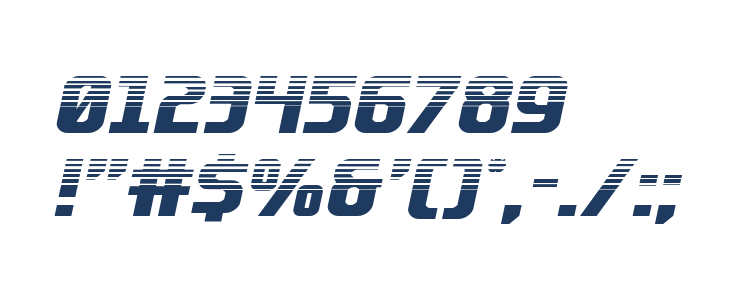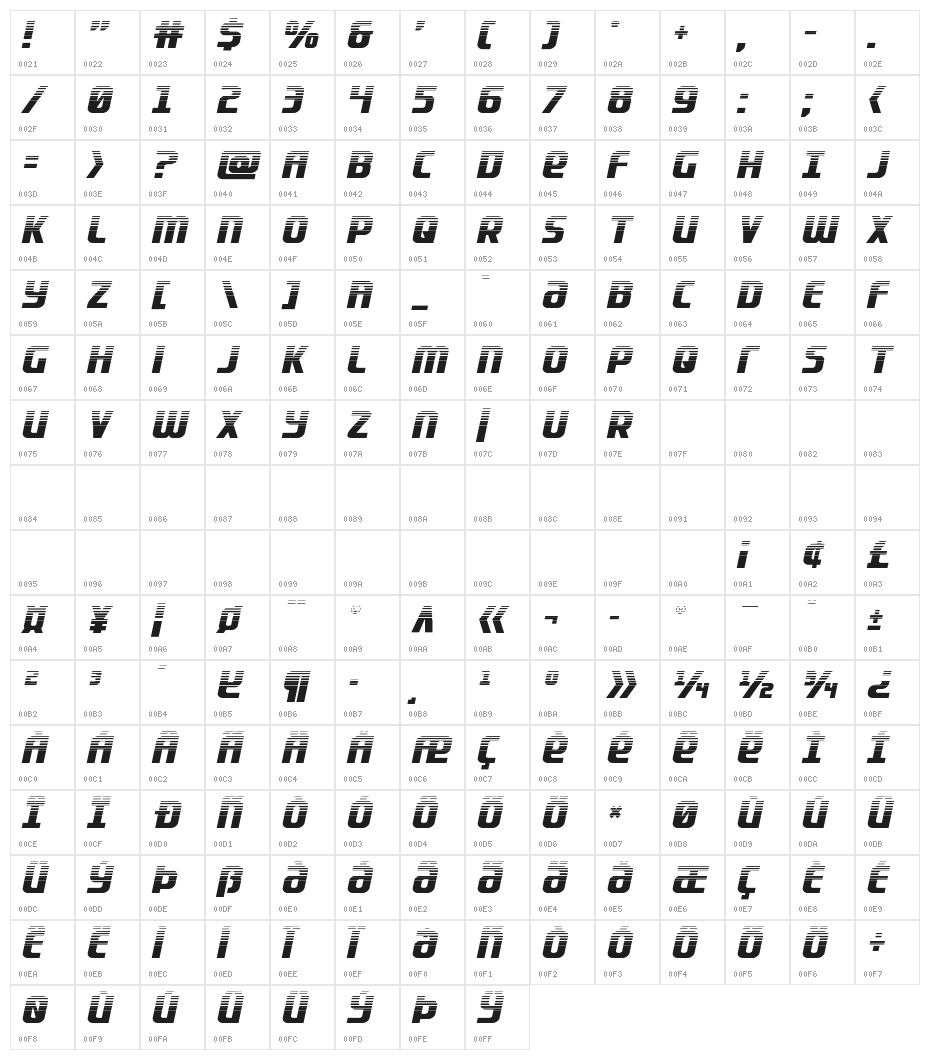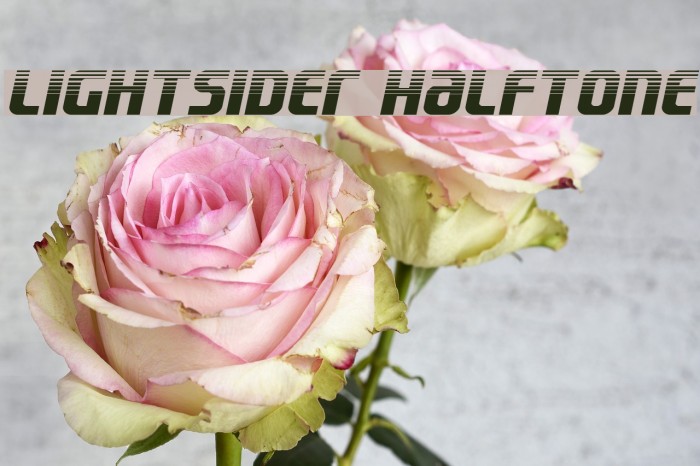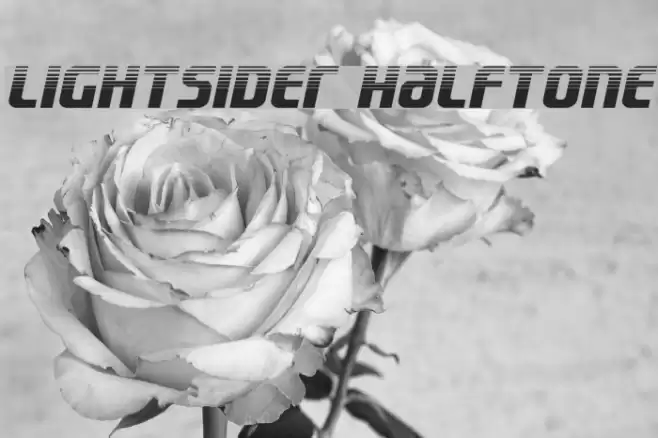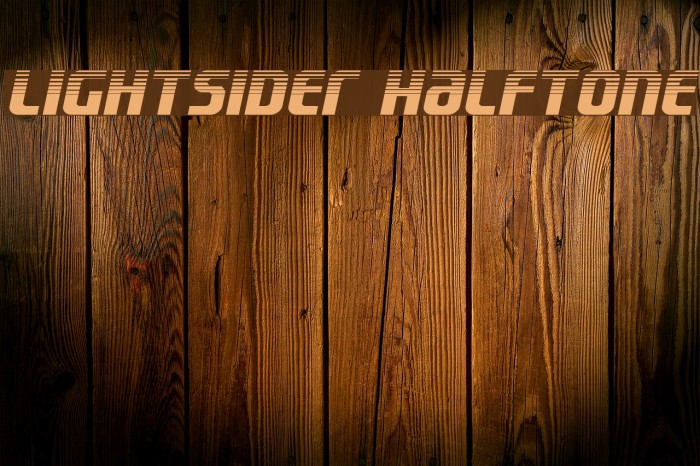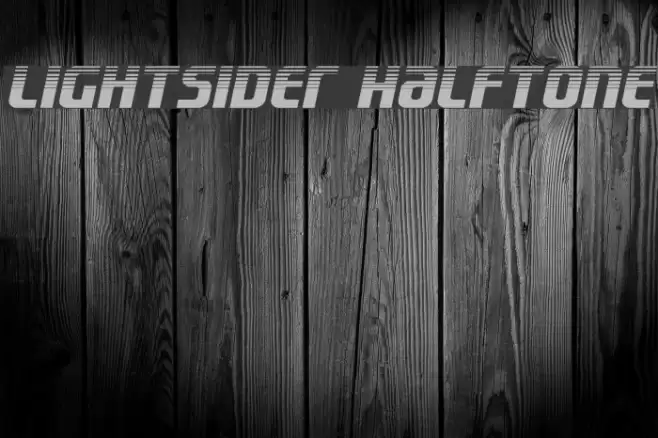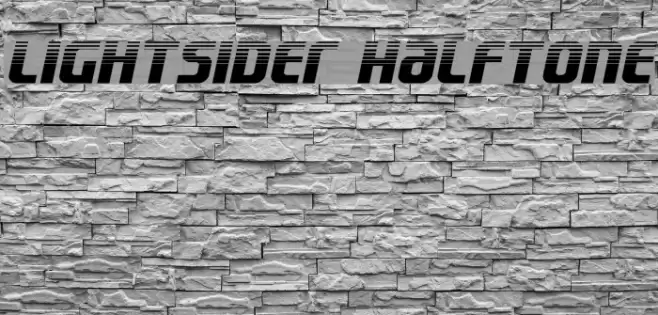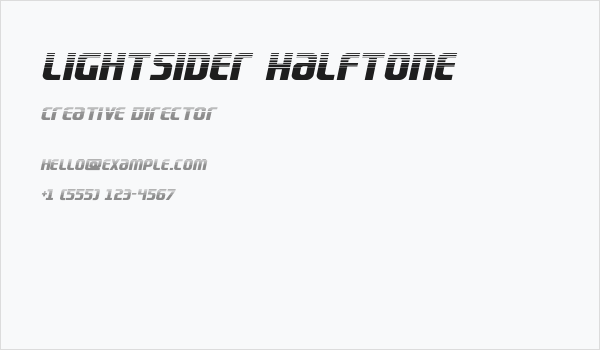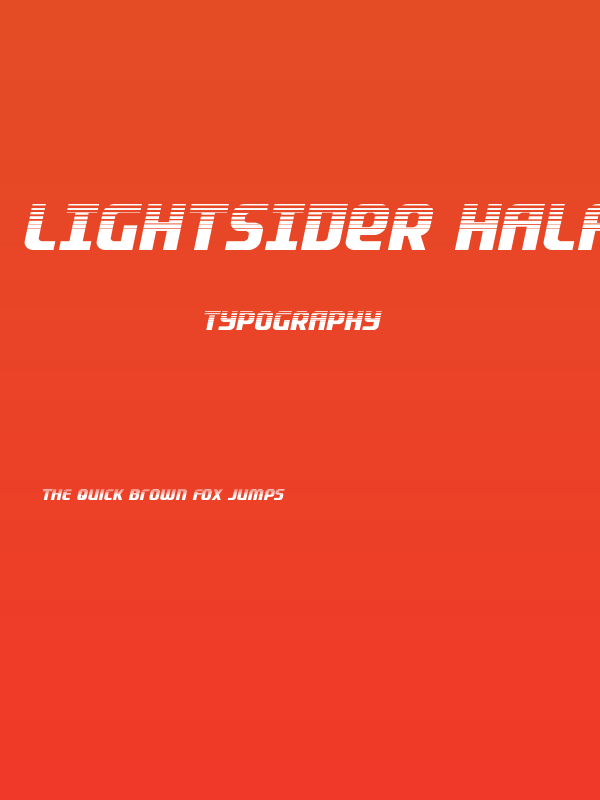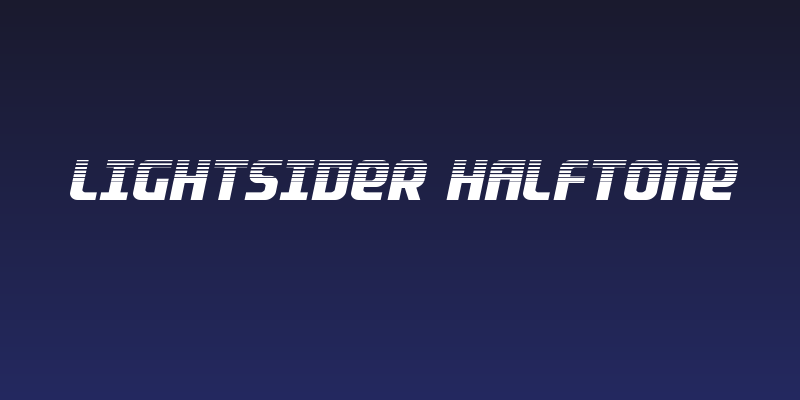
Lightsider Halftone Font
Lightsider Halftone Description
This font features a bold, futuristic design with a halftone effect that gives it a dynamic and energetic appearance. The characters are wide and have a distinct horizontal striping pattern that adds a sense of movement and modernity. The uppercase and lowercase letters maintain a consistent style, with sharp edges and a geometric structure. The numerals and special characters are equally bold and follow the same design principles, ensuring uniformity across all glyphs. This font's unique style makes it stand out, making it ideal for projects that require a strong visual impact.
| Proposed Projects | Ideal for sci-fi themed designs, video game titles, posters, and branding that requires a modern and dynamic look. |